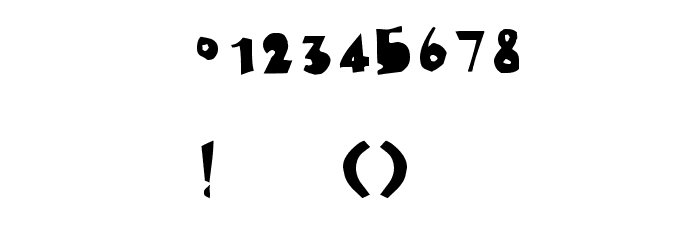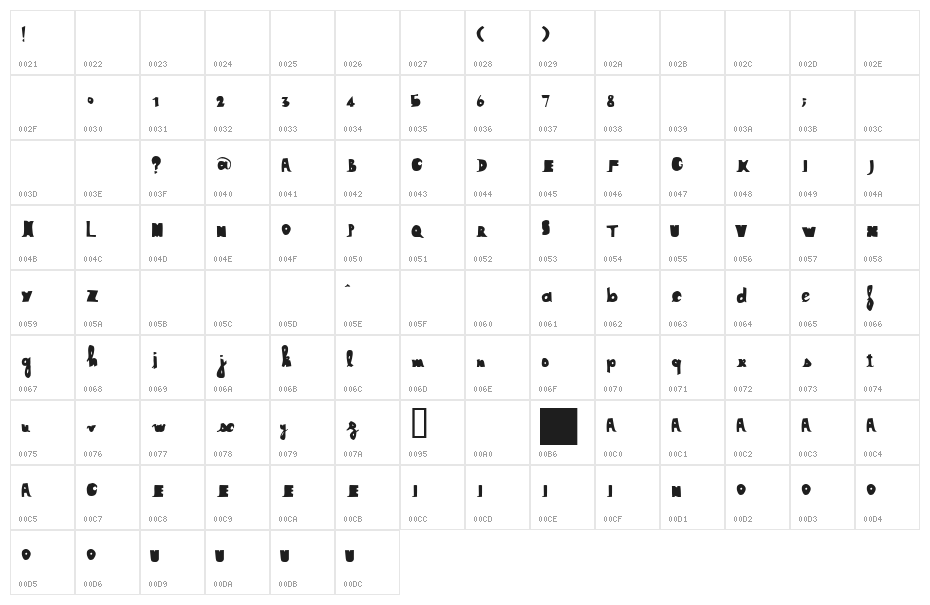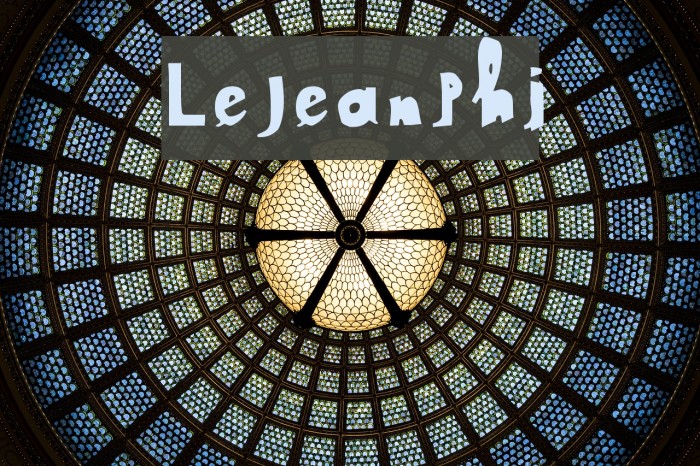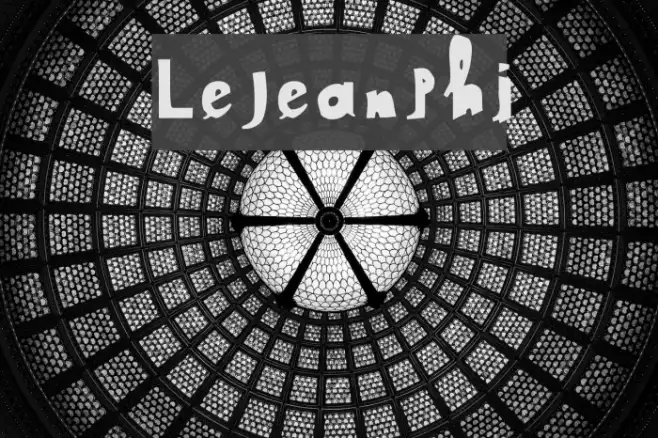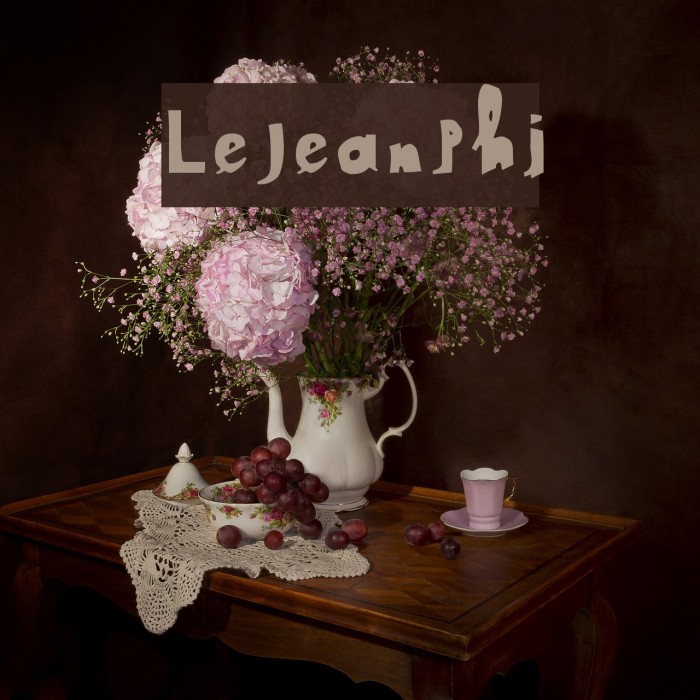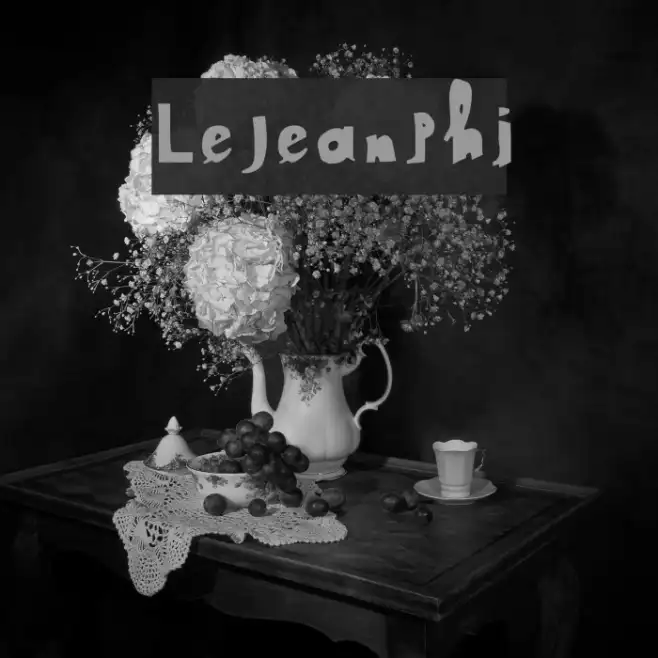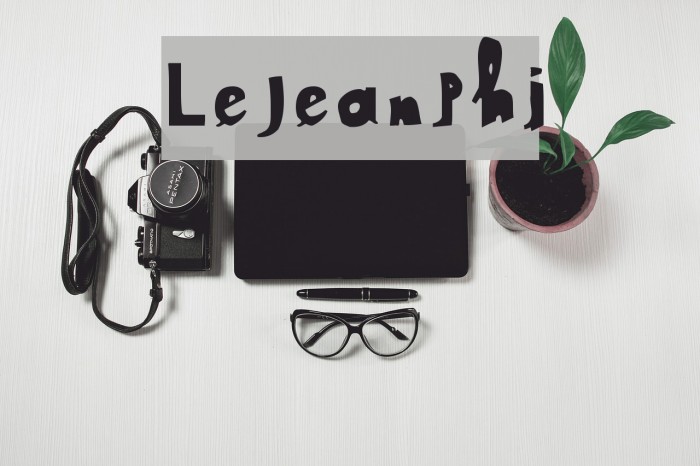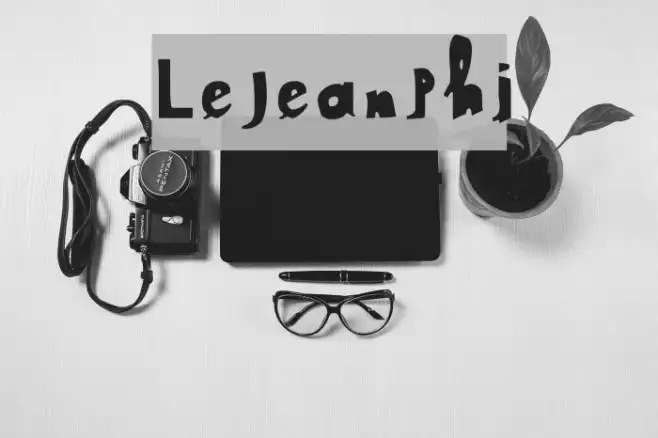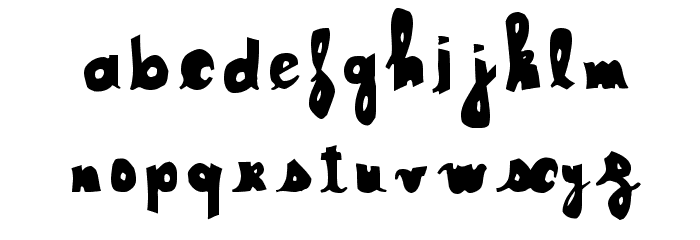
LeJeanPhi Font
LeJeanPhi Description
This font features a playful and whimsical style with irregular, bold strokes that give it a hand-drawn appearance. The uppercase letters are characterized by their chunky, uneven shapes, while the lowercase letters maintain a quirky, flowing form. The numerals and special characters follow the same playful aesthetic, making the font suitable for creative and informal applications. The overall design is unique and eye-catching, with a distinct personality that stands out in any project.
| Overall Style | Whimsical |
| Use Case | Logos, Posters, Creative Projects |
| Proposed Projects | Ideal for children's books, creative posters, playful branding, and artistic invitations. |